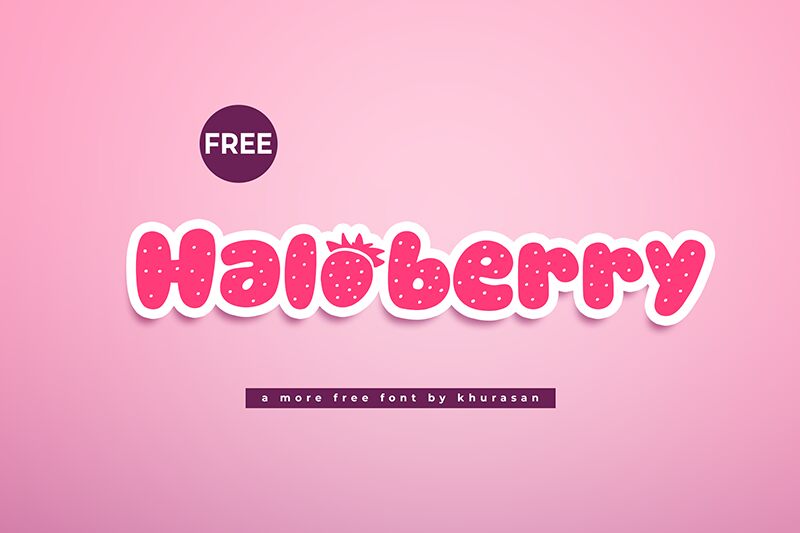
Haloberry
Haloberry font by Khurasan is a bold cartoon display typeface whose unusually balanced shapes share whimsical proportions. The rounded and thick characters establish an organic and welcoming appearance that directly reflects the material from which it was drawn. The playful theme of this free font makes it perfect for delivering positive emotions while increasing engagement.